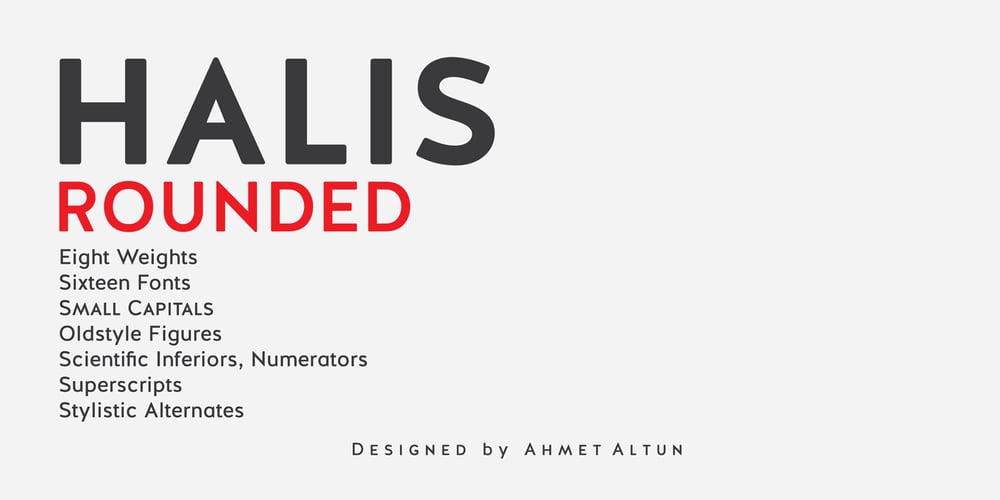
Halis Rounded Font Family was designed by Ahmet Altun and published by Ahmet Altun. Halis Rounded contains 16 styles and family package options. The Halis Rounded Font Family from Ahmet Altun comes in eight weights. In addition, all weights have small caps for romans. Halis Rounded is the smoother version of the Halis Grotesque family. With rounded corners, this new font seems much softer and eye-pleasing even though it still has geometric and straight borders. Halis Rounded is legible from very small size to very large ones and also suitable for letterpress. Thanks to small caps accommodation, this font family makes their use in web typography even easier. As with the small caps, all fonts can be used to create great works on the web as logos, texts, presentations etc. and in prints as posters, t-shirts, magazines, and notices.